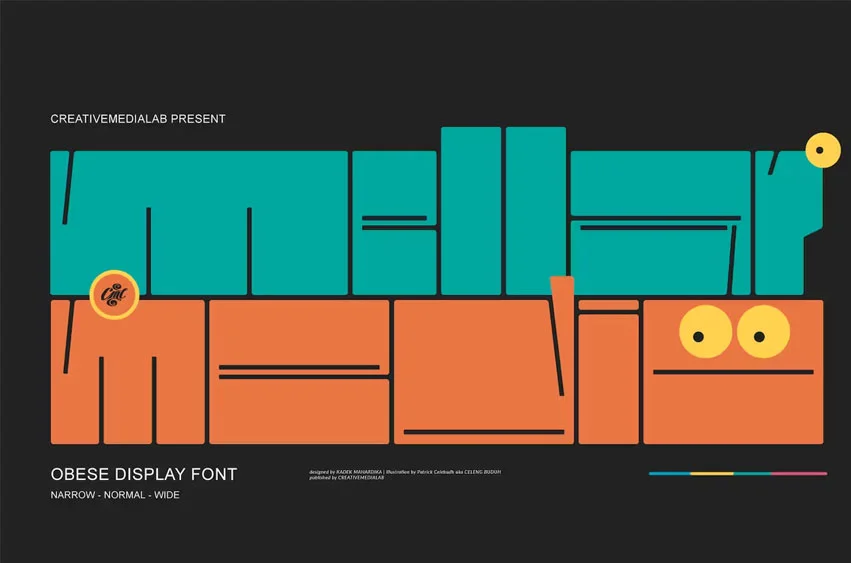
Mellar Medio Font
Mellar Medio Font is an obese font with a simple, square and modern look. It consists of 3 fonts: narrow, regular and wide. Mellar Medio will add fresh fun vibes to your designs. This font is perfect for Poster, book covers, titles, etc.